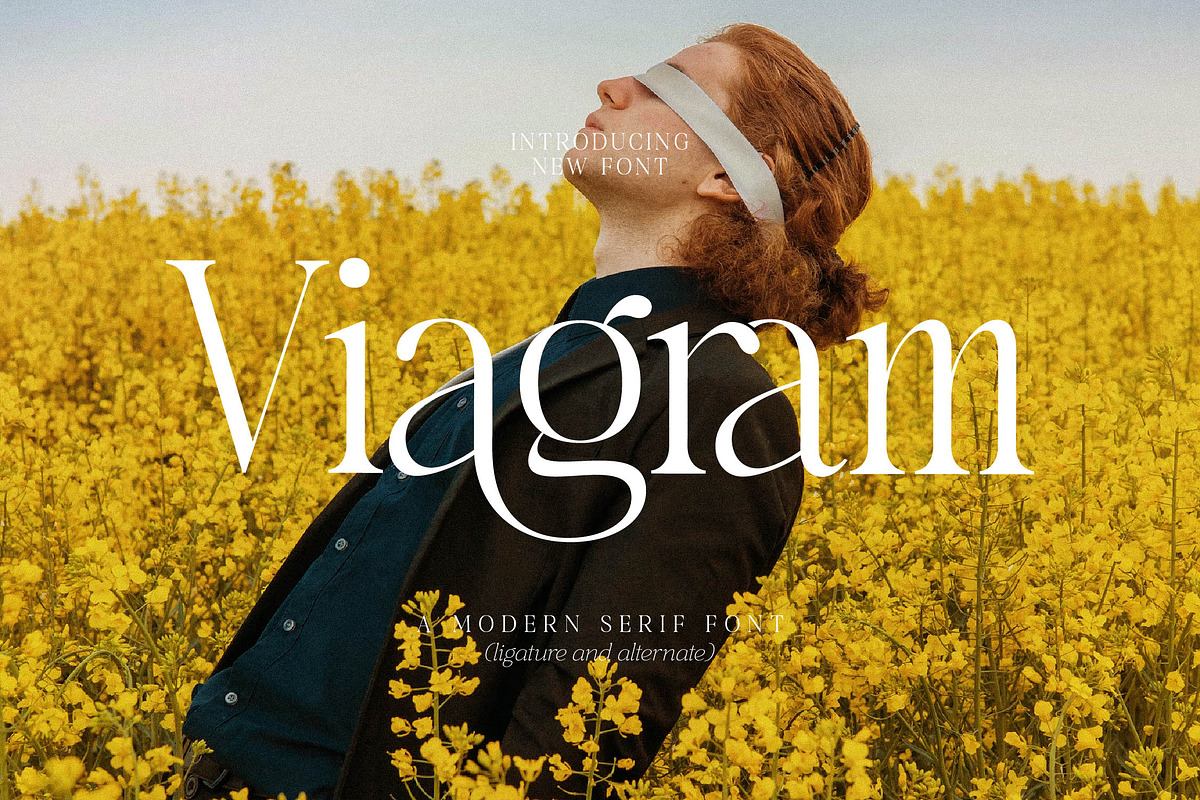
Bring bold elegance to your next project with Viagram Modern Serif Font Free Download — a sleek and stylish typeface made for modern creatives. With its sharp serifs, confident spacing, and clean sophistication, Viagram is ideal for fashion editorials, upscale branding, minimalist websites, and high-end product packaging.
This font commands attention while maintaining a polished, professional aesthetic. It includes a complete character set: uppercase and lowercase letters, numbers, punctuation, and multilingual support — giving you full control over your visual storytelling.
If your goal is to create visuals that feel powerful, modern, and unforgettable — Viagram is the font to make it happen. Download it today and let your typography speak with bold sophistication.